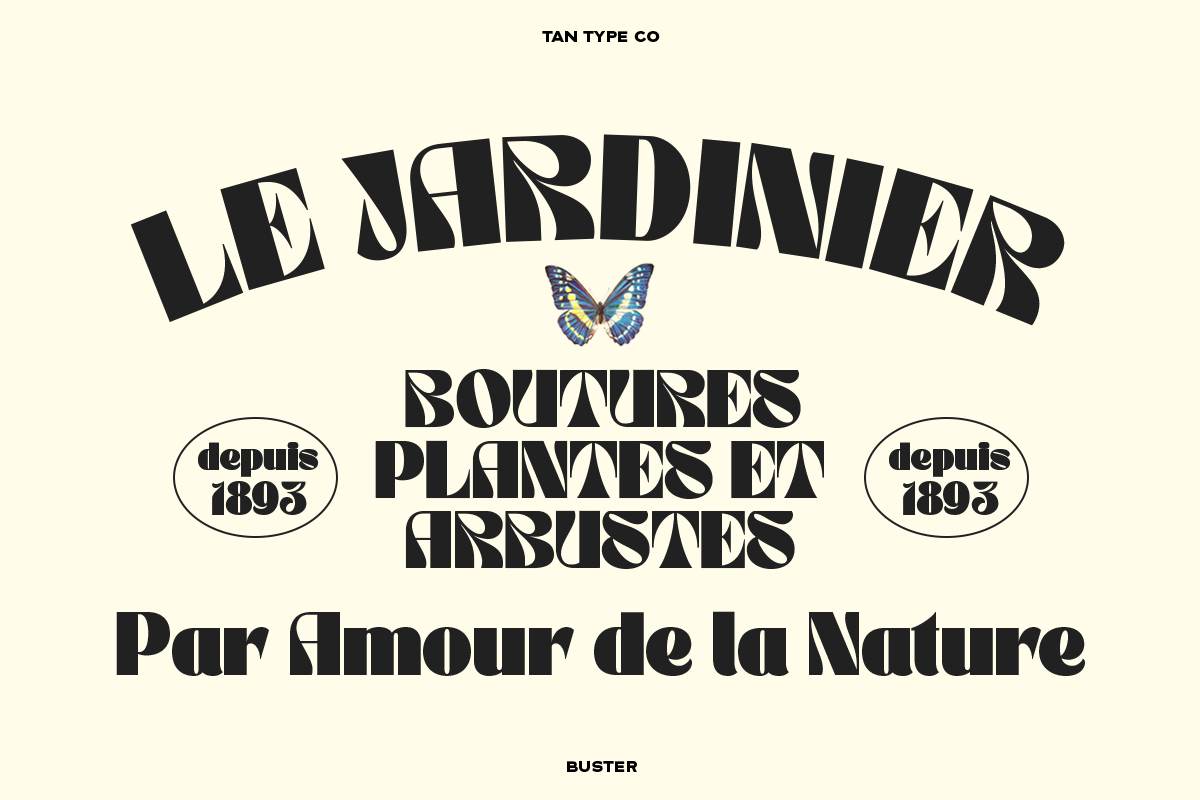
TAN - BUSTER
Tan-Buster is a retro inspired display typeface. It's fun and groovy with a bold personality. Perfect for masthead, logo, or anything your creativity takes you.